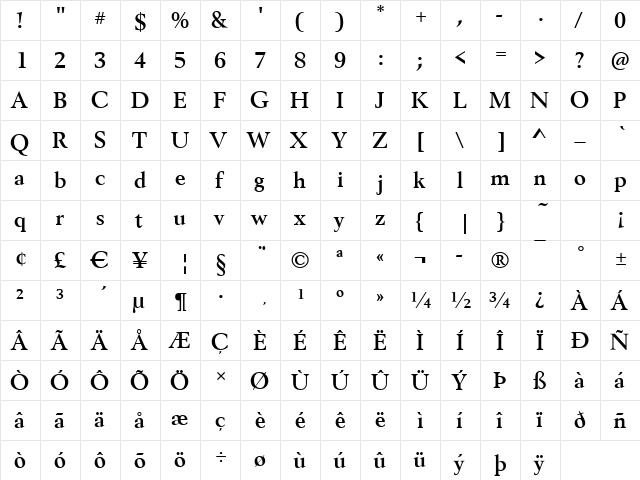
Bestseller Bold Font Preview
Bestseller Bold
Bestseller Bold Font Details
Design Context for Bestseller Typeface
Bestseller is a composed and adaptable typeface that performs quietly and consistently across a wide range of design contexts. Its bold stroke weight gives it real presence on the page.